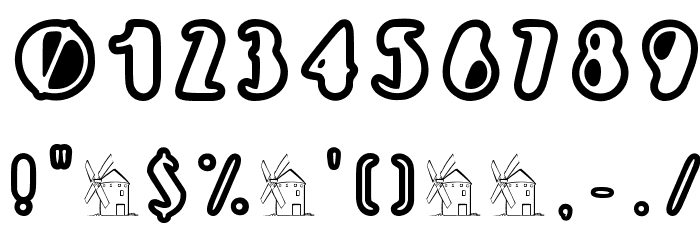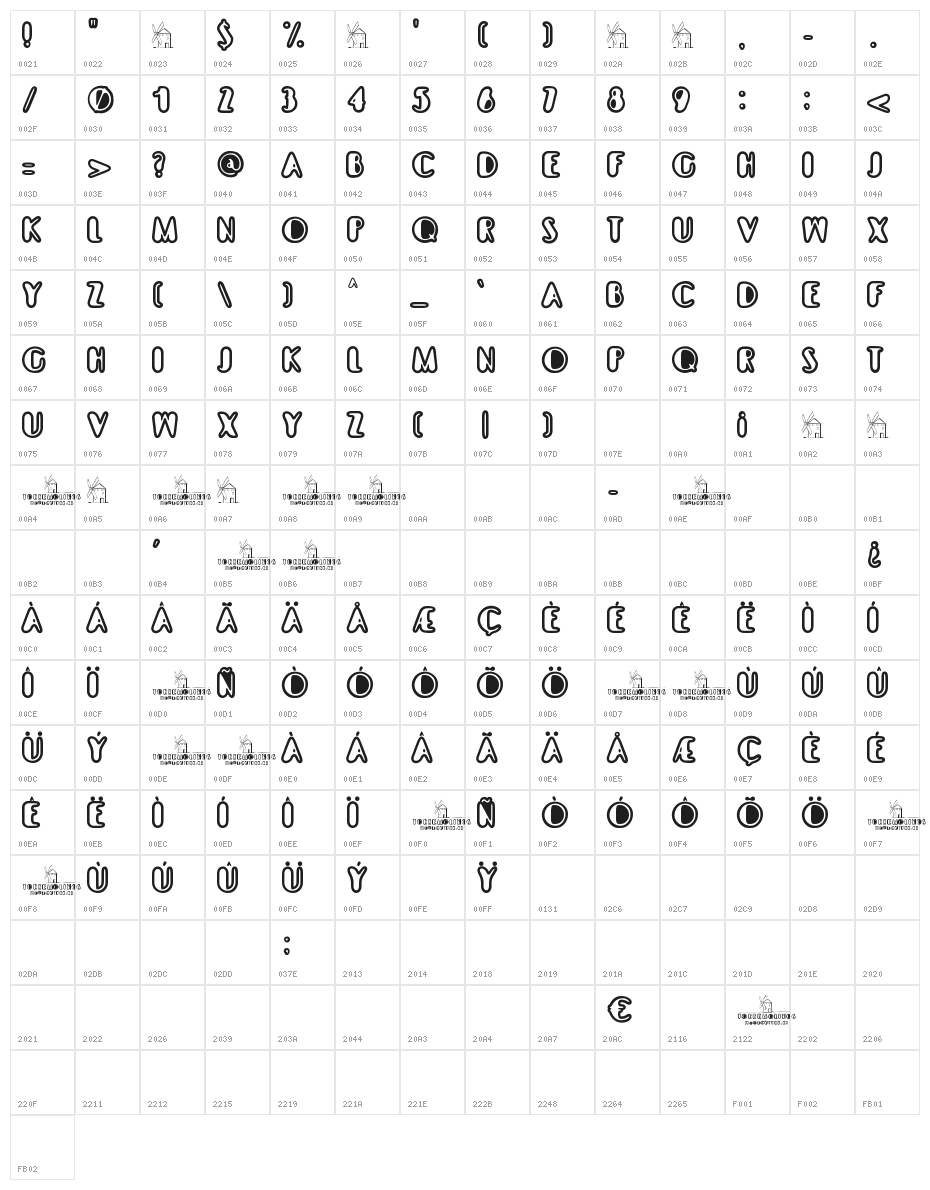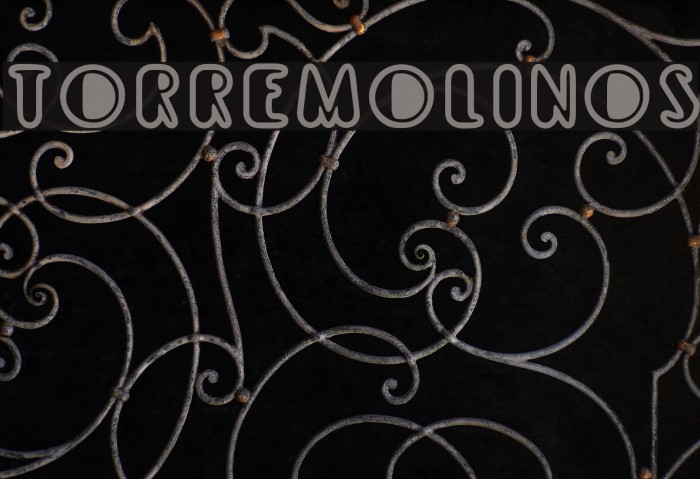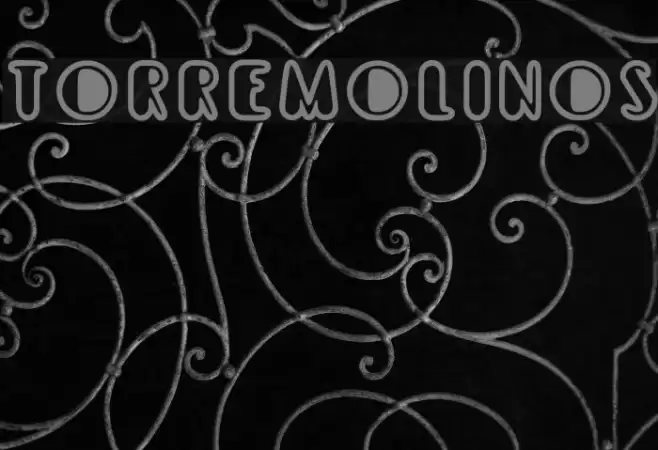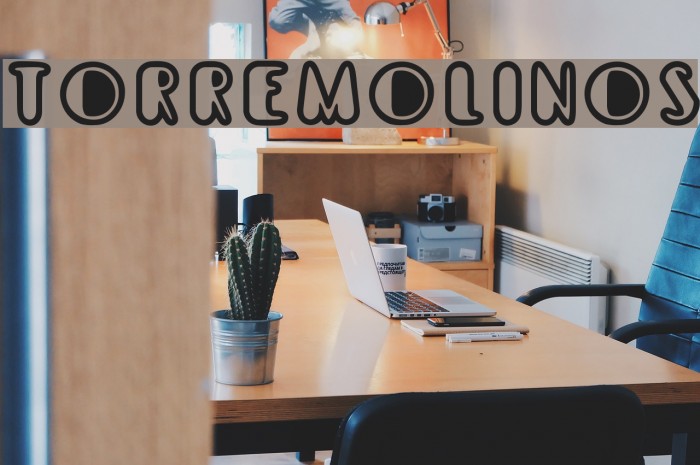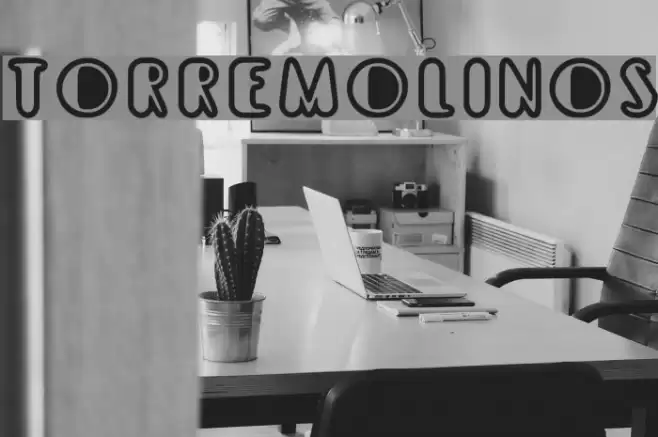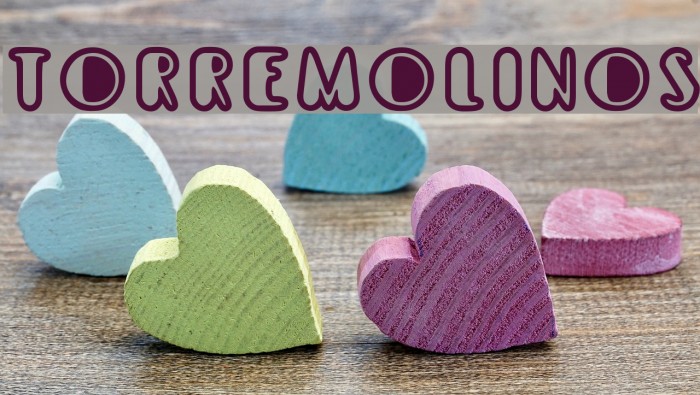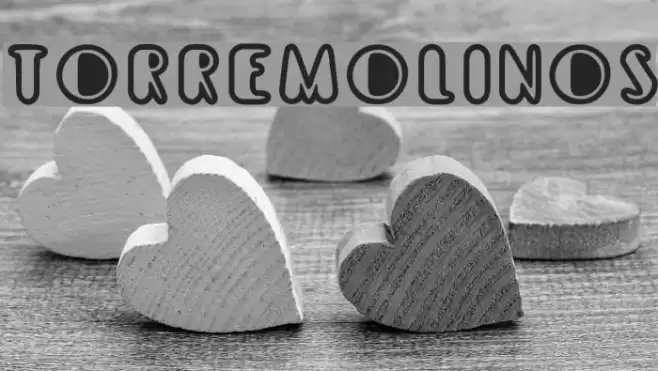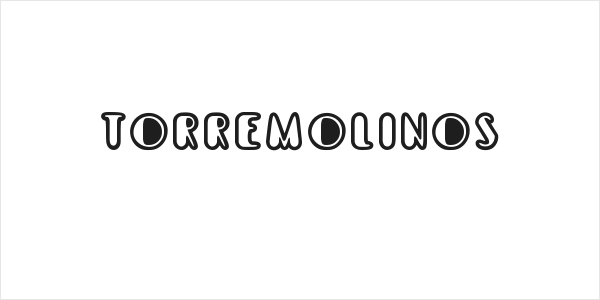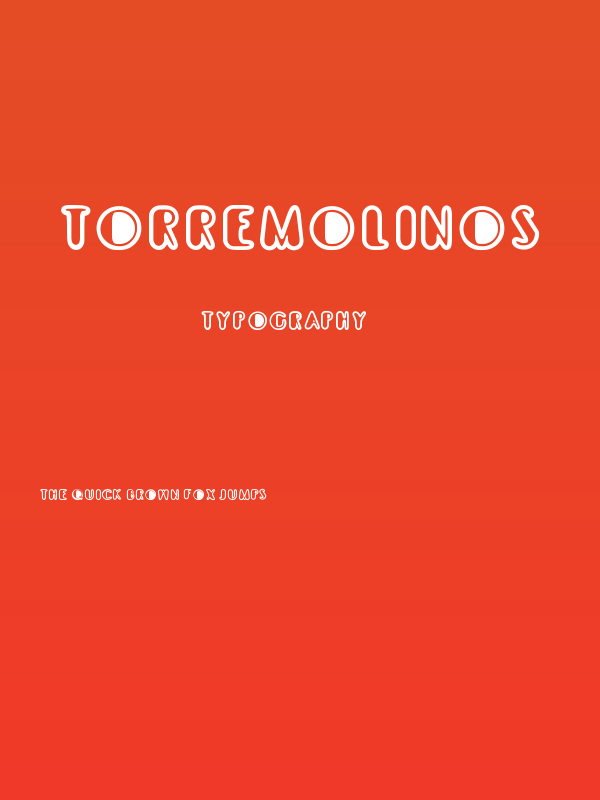
Torremolinos Font
Torremolinos Description
This playful and bold font features a unique outline style that gives each character a distinct, eye-catching appearance. The letters are rounded with a thick border, creating a sense of depth and dimension. The uppercase and lowercase characters maintain a consistent style, with the lowercase letters slightly smaller but equally bold. Numbers and special characters follow the same design, ensuring uniformity across all elements. The font's whimsical nature makes it ideal for projects that require a fun and engaging aesthetic. Its boldness ensures readability, while the outline adds a creative flair.
| Proposed Projects | Ideal for children's books, playful branding, posters, and creative invitations. |